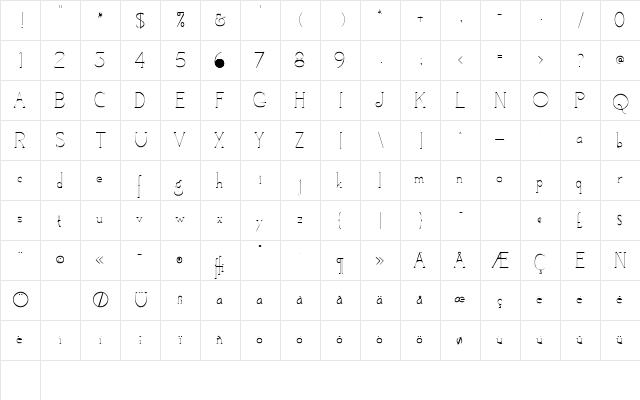
Julien Regular
Design Context for Julien Typeface
Julien is a composed and adaptable typeface that performs quietly and consistently across a wide range of design contexts.